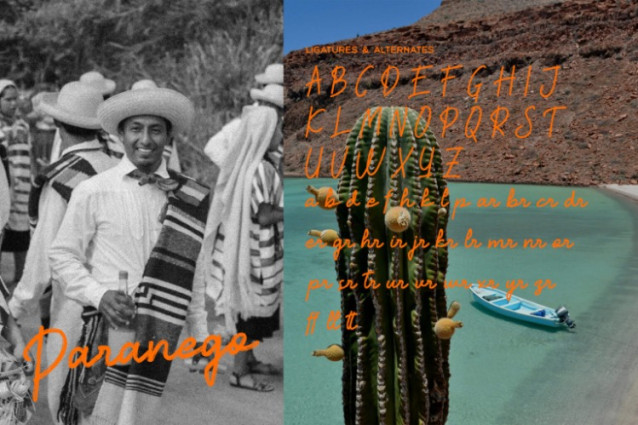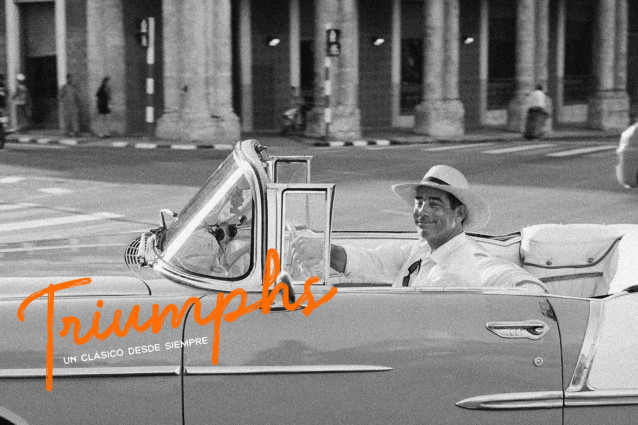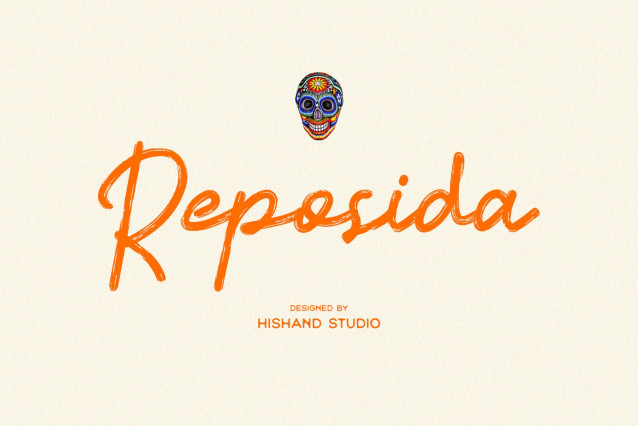
Reposida is a brush script built for warmth and character. Every stroke carries the loose, confident energy of real brush lettering, with slight pressure variations and organic curves that feel handmade rather than templated. The letterforms lean casual but stay legible, striking a balance between raw expression and clean usability. There’s a rhythm to the way each letter connects, giving words a natural flow that feels more like handwriting than typesetting. Designed with versatility in mind, Reposida Brush Font works well across labels, packaging, logos, and editorial layouts. It carries a natural, artisanal feel that suits spirits branding, craft goods, and lifestyle products looking for a touch of authenticity and personality. Whether it’s a tequila label, a coffee bag, or a boutique storefront sign, Reposida brings a sense of craftsmanship that mass-produced fonts often lack.